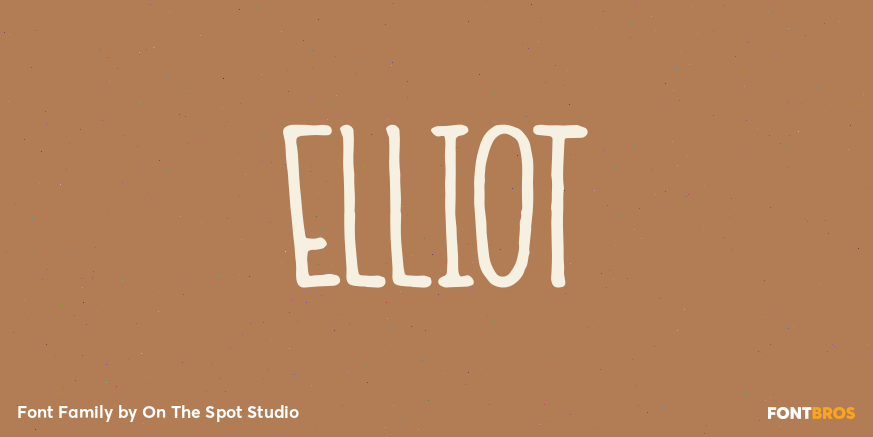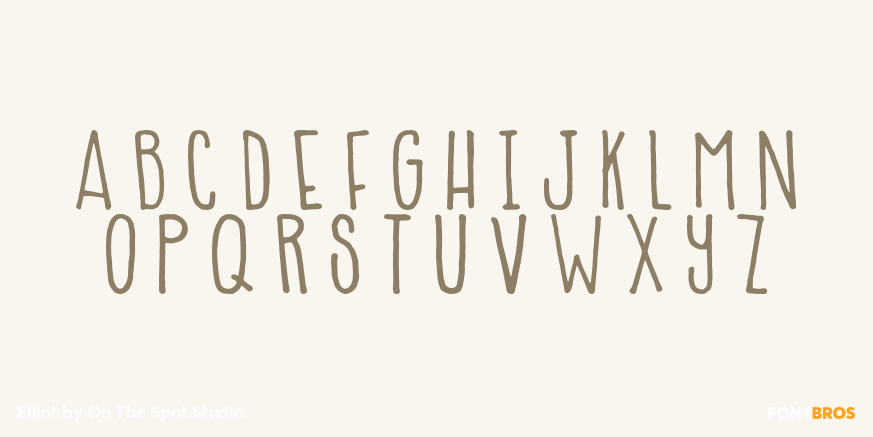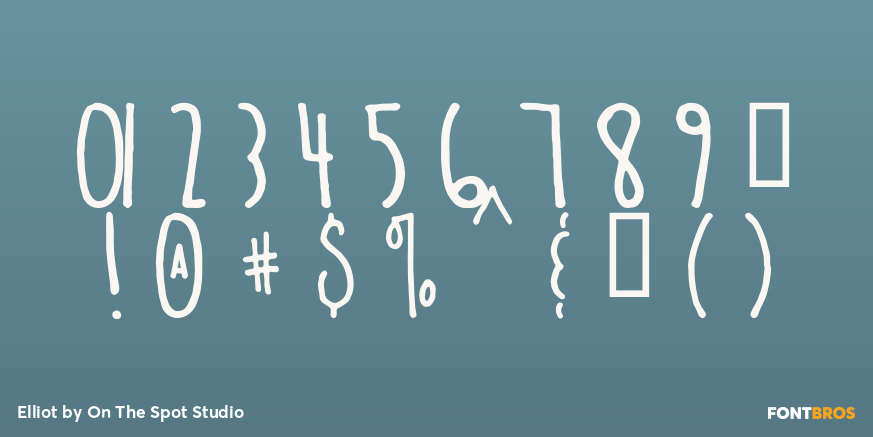
Elliot
Font Family by On The Spot Studio
Elliot is a mostly uppercase display font with some unicase glyphs. Includes numbers, letters, and punctuation.